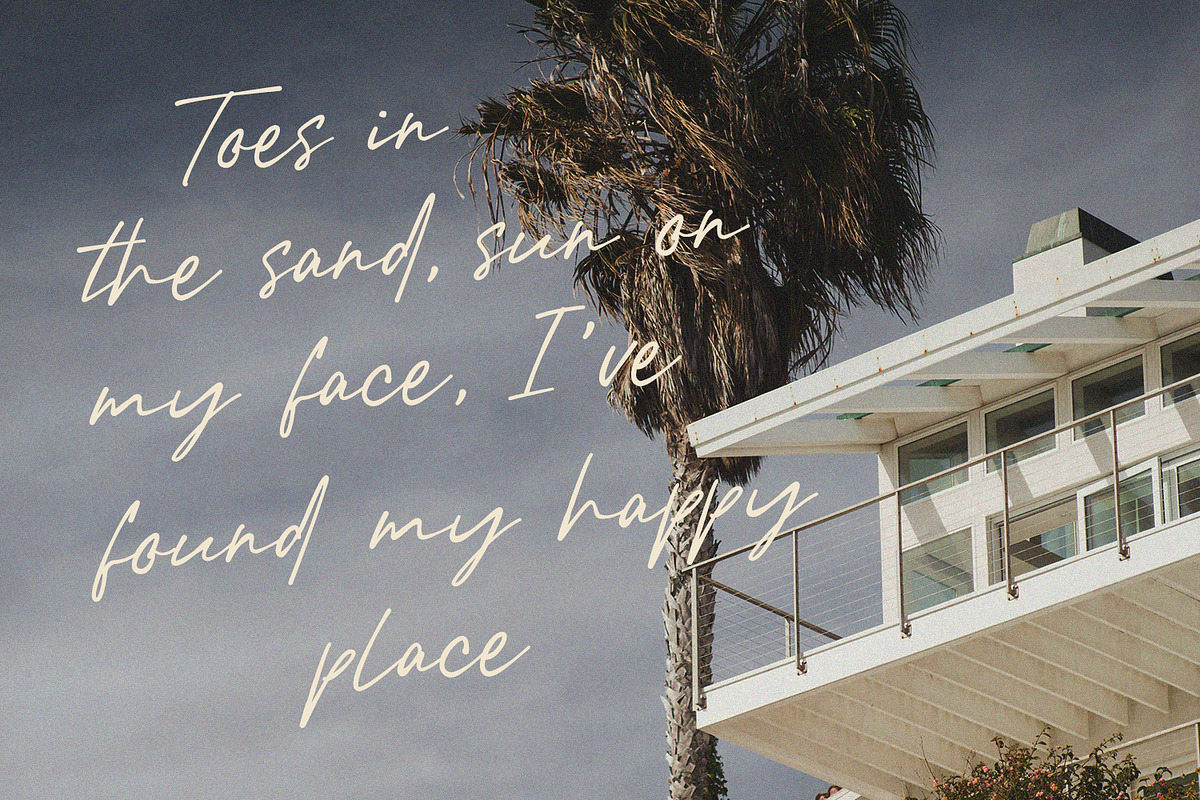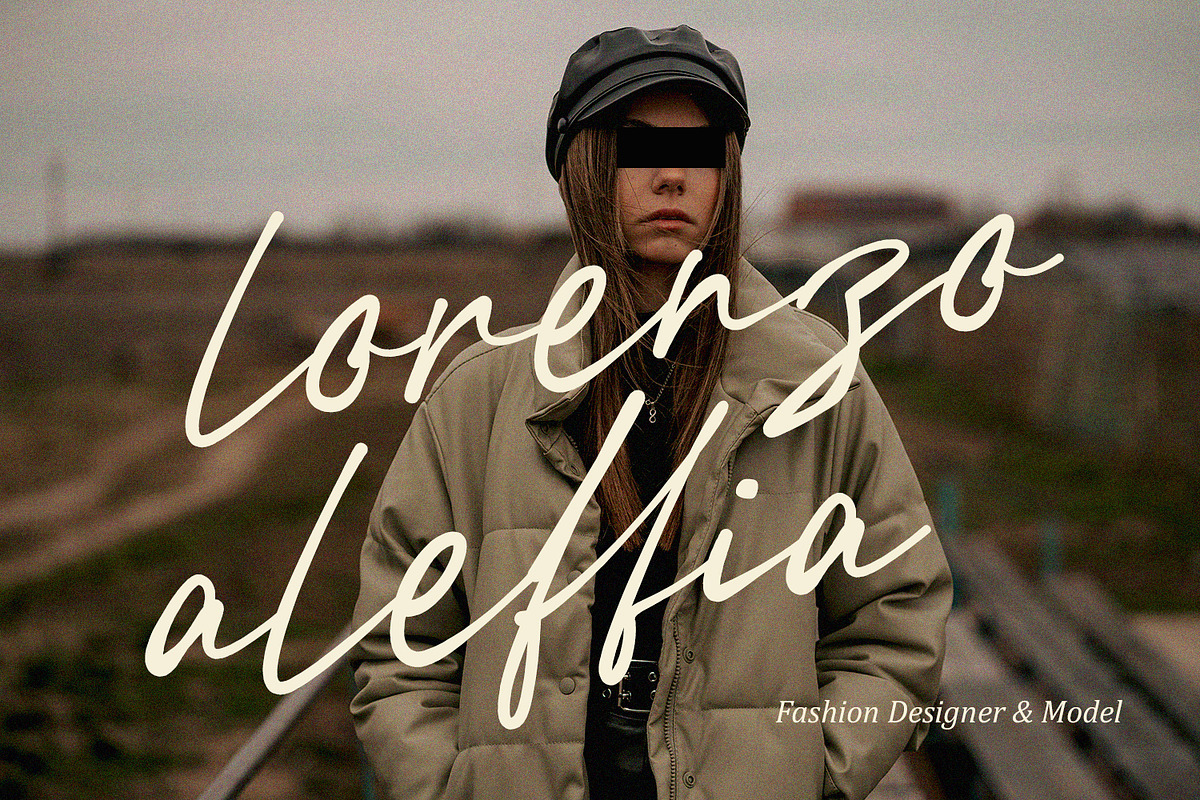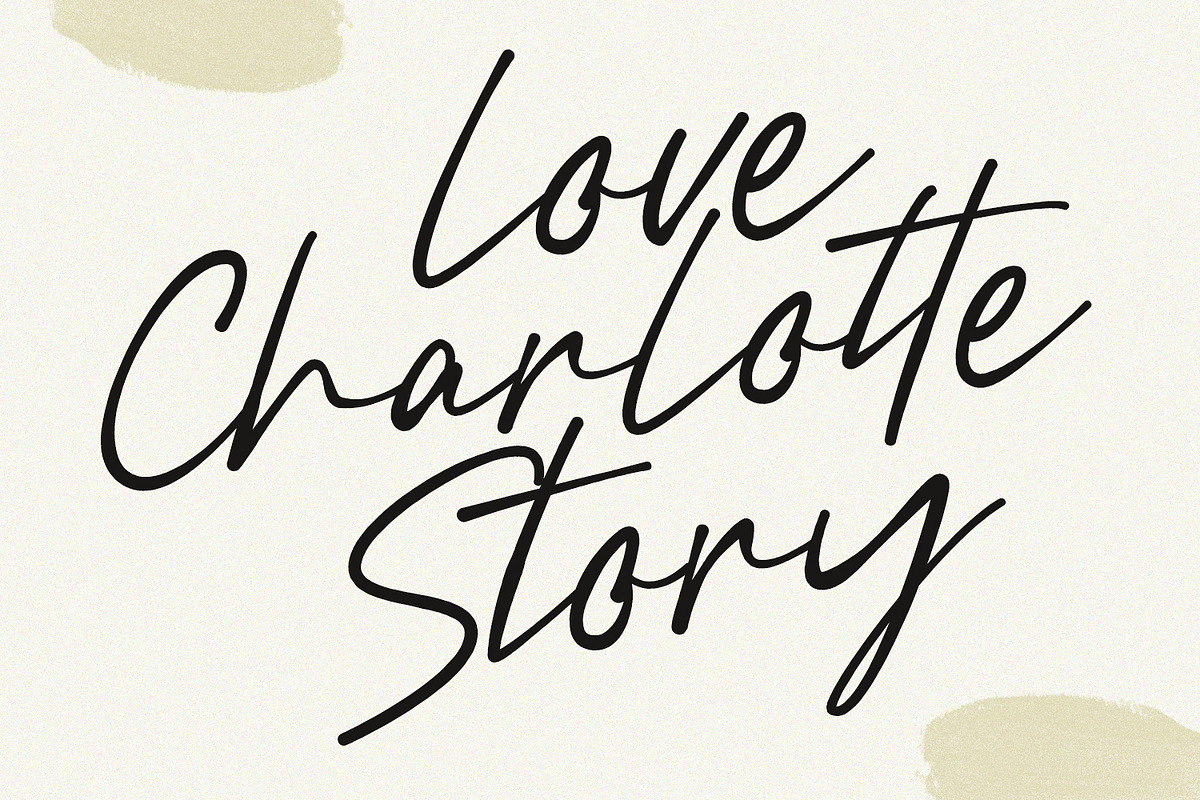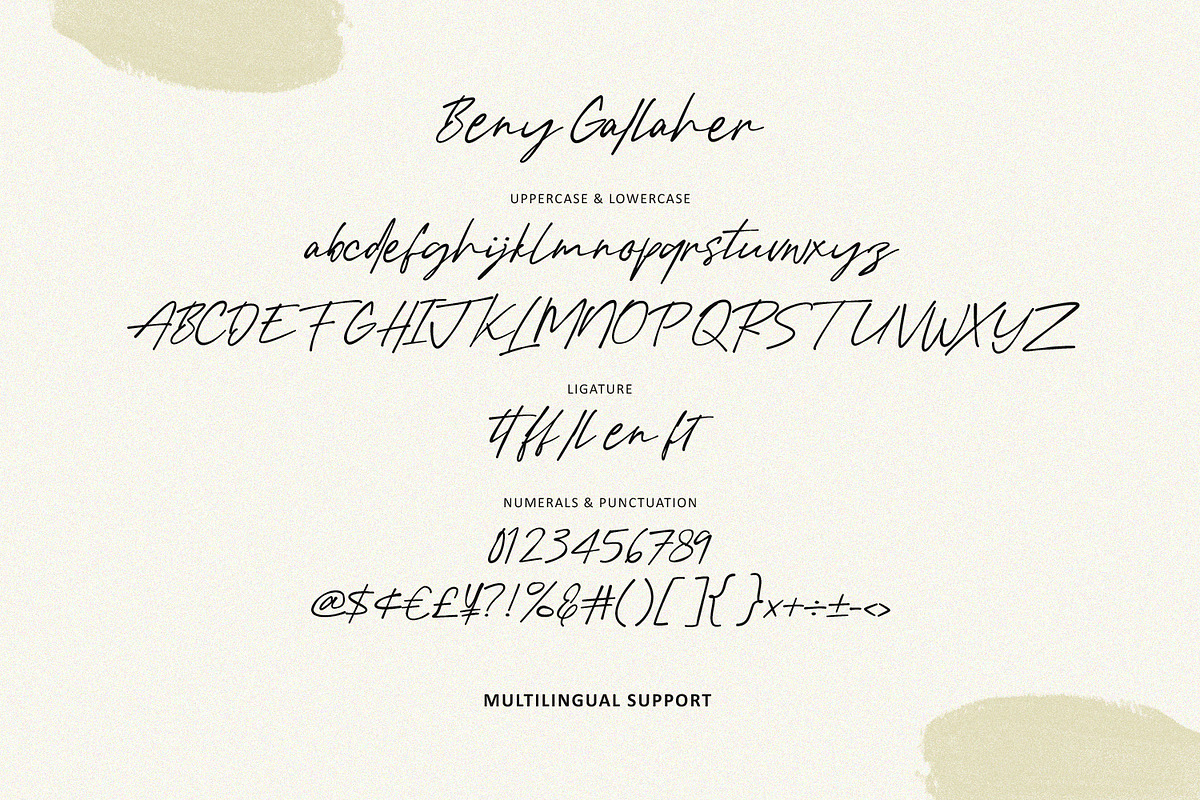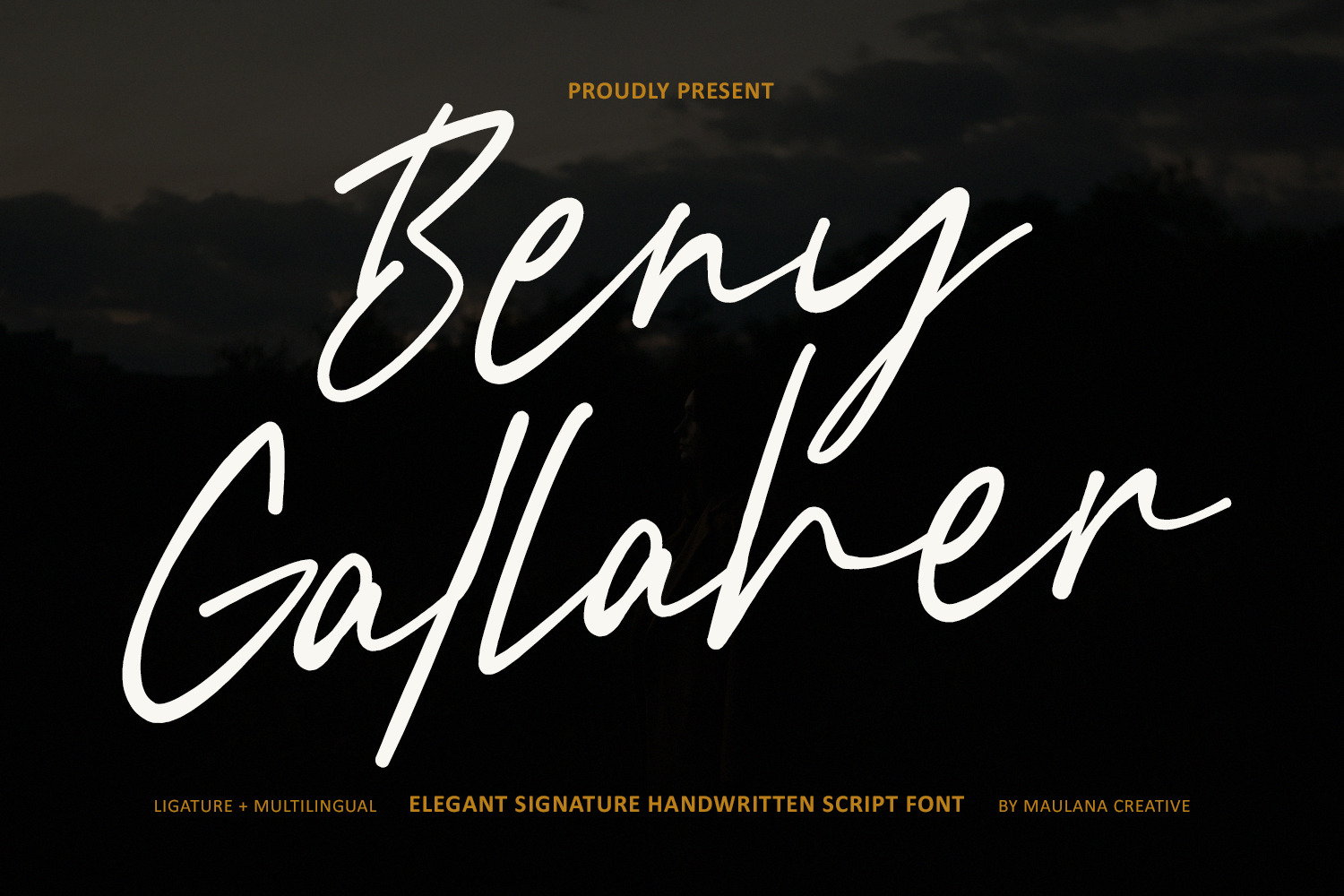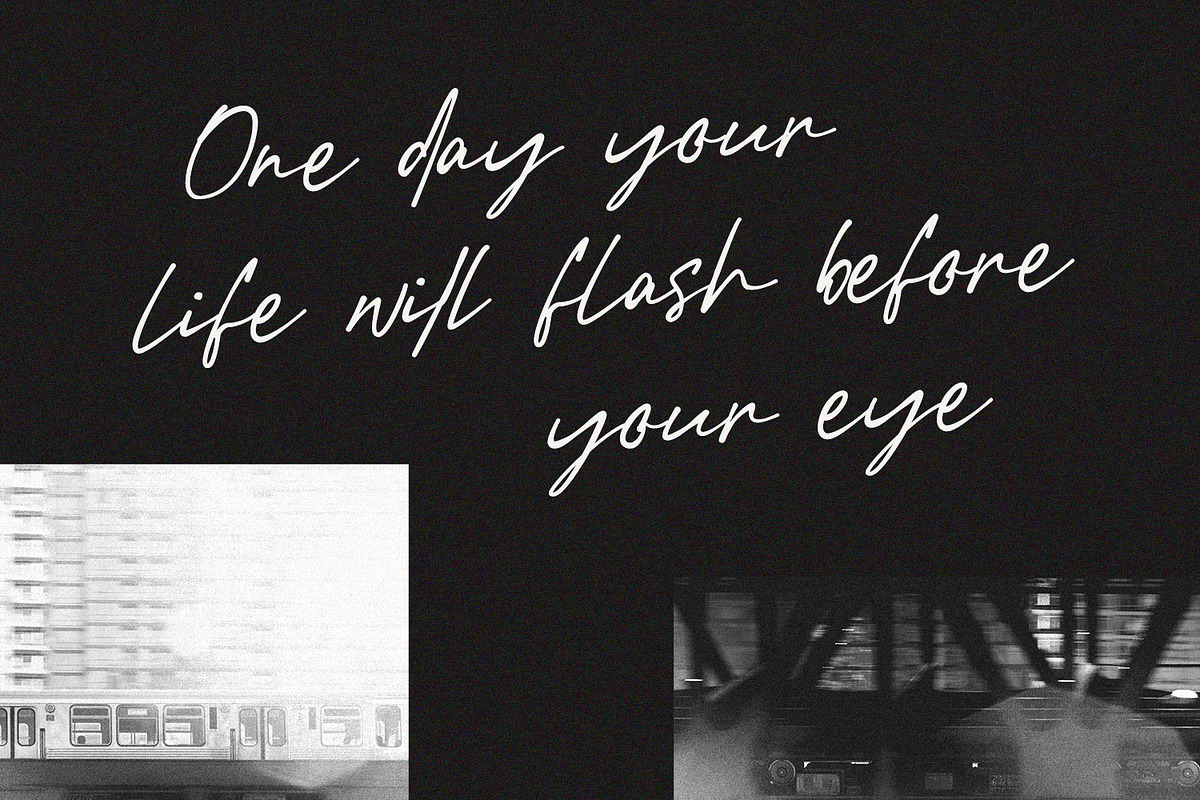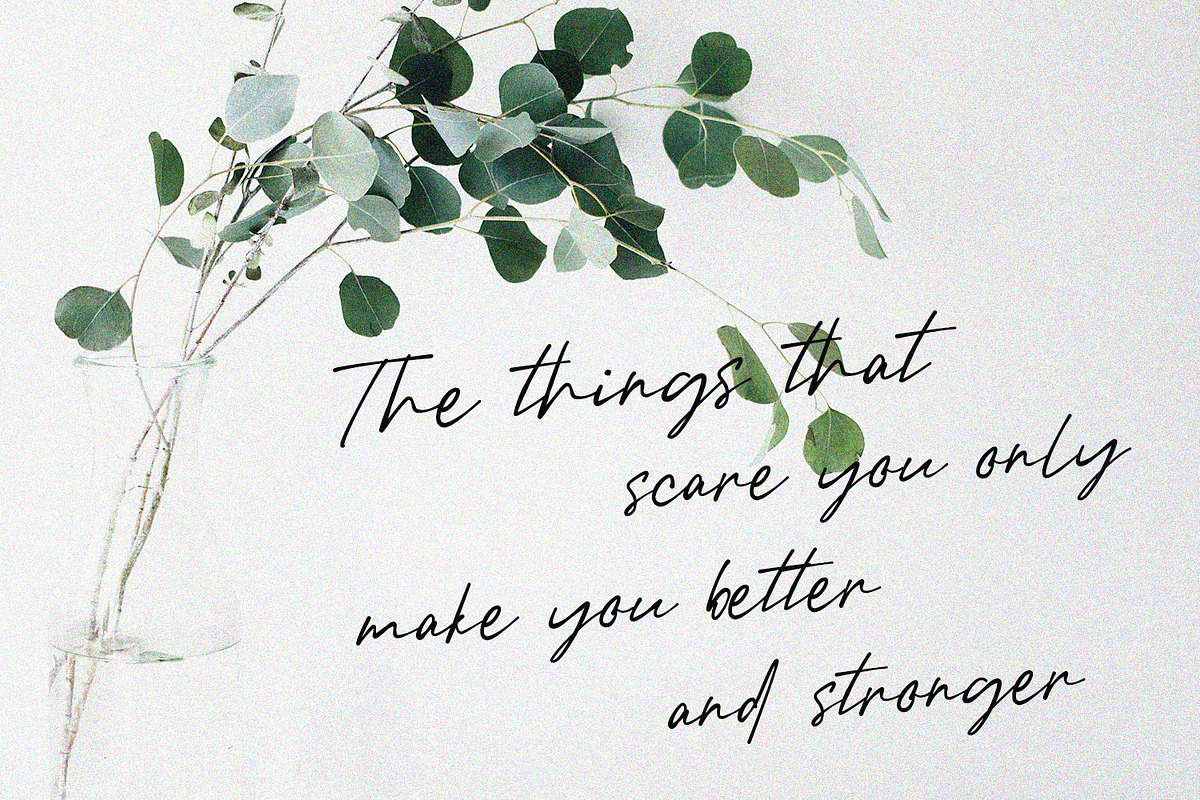
Beny Gallaher Elegant Signature Font
Introduce Beny Gallaher, an exquisite handwritten script font designed to bring a touch of personal elegance and effortless style to your projects. With its fluid, natural strokes and sophisticated "signature" feel, this font captures the essence of authentic handwriting.
Beny Gallaher is perfect for high-end branding, wedding invitations, luxury logos, social media quotes, and editorial designs. It features a comprehensive set of ligatures and multilingual support, ensuring your typography looks seamless and professional in various languages.
- Elegant & Fluid Strokes: Mimics real handwriting for a personal touch.
- Beautiful Ligatures: Enhances the natural flow of the letters.
- Full Character Set: Includes Uppercase, Lowercase, Numerals, and Punctuation.
- Multilingual Support: Ready for global design needs.
- Versatile Use: Ideal for signatures, watermarks, photography, and fashion branding.